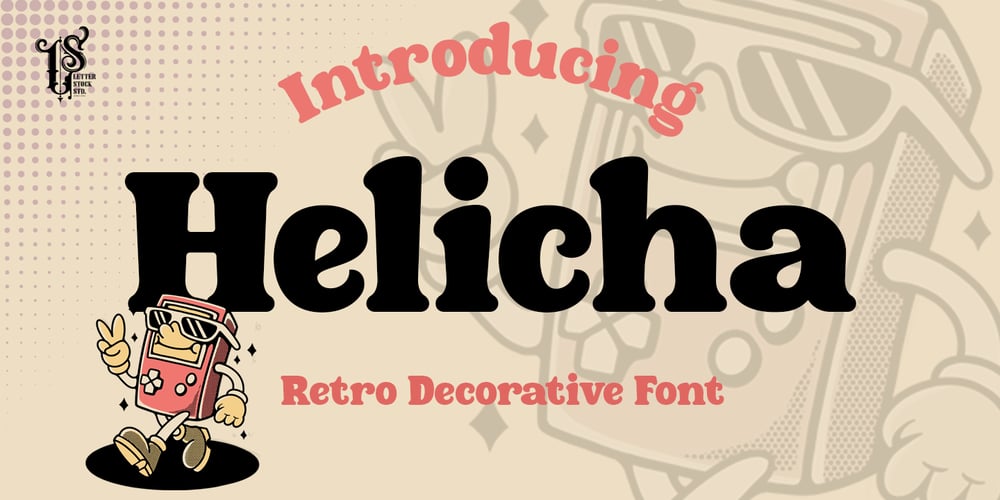
Helicha Font Family was designed by Studio LetterStock and published by LetterStock. Helicha contains 1 styles and family package options. Helicha FontThis pair was inspired by the retro cartoon poster design that i saw on some coffee shop, It was crafted by hand specially to add natural handmade feeling in its brand identity than i make it clean with pentool.Opentype featuresHelicha font has 205 character set includedBukle wrack Font is very good looking in logo, labels, product packaging, invitations, advertising and others.What includes* Multilingual support (Western European characters).This fonts works with folowing languages:Afrikaans, Albanian, Asu, Basque, Bemba, Bena, Chiga, Cornish, Danish, English, Estonian, Filipino, Finnish, French, Friulian, Galician, German, Gusii, Indonesian, Irish, Italian, Kabuverdianu, Kalenjin, Kinyarwanda, Low German, Luo, Luxembourgish, Luyia, Machame, Makhuwa-Meetto, Makonde, Malagasy, Malay, Manx, Morisyen, North Ndebele, Norwegian Bokmål, Norwegian Nynorsk, Nyankole, Oromo, Portuguese, Romansh, Rombo, Rundi, Rwa, Samburu, Sango, Sangu, Scottish Gaelic, Sena, Shambala, Shona, Soga, Somali, Spanish, Swahili, Swedish, Swiss German, Taita, Teso, Vunjo, ZuluThank you for using this font.LS